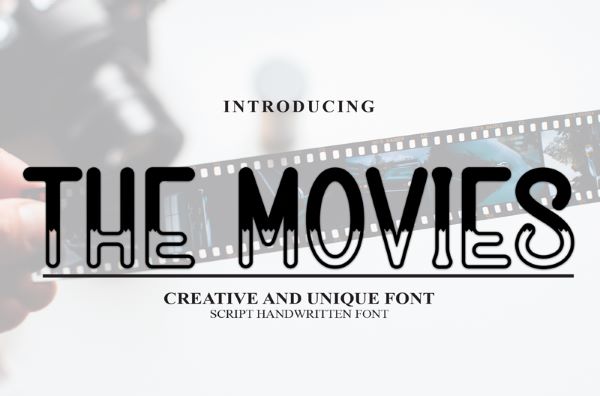
The Movies Font
The Movies Font is a Doodle Font by Andi Moz that nails a playful two-tone style with cheerful, all-caps letterforms that feel sweet, friendly, and genuinely fun to look at. Its handwritten display character brings the kind of lighthearted energy that makes website banners, gaming UI, and creative promotional material instantly more engaging and approachable.
Despite having no lowercase letters, it shines on pet shop posters, T-shirts, theater flyers, wedding invitations, cards, and any design that needs a playful human touch. Browse our full library of Free Fonts and discover more fun, creative typefaces from independent designers worldwide.